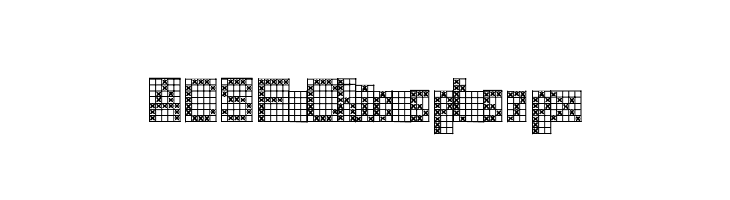
A geometric, grid-based font with a modern, digital aesthetic.
A decorative font with a cross-stitch pattern, ideal for crafty and vintage-themed projects.
A geometric, grid-based font with a pixelated and decorative design.
A decorative font with a cross-stitch pattern, offering a handcrafted and artistic look.
A decorative, grid-patterned font with a mosaic-like appearance.
A pixelated, cross-stitch style font with a handcrafted, decorative look.
A decorative, grid-patterned font with a festive and playful style.
A decorative font with a cross-stitch pattern, ideal for festive and creative designs.
A modern, grid-based font with a pixel art style.
A pixelated font with a retro digital display style.